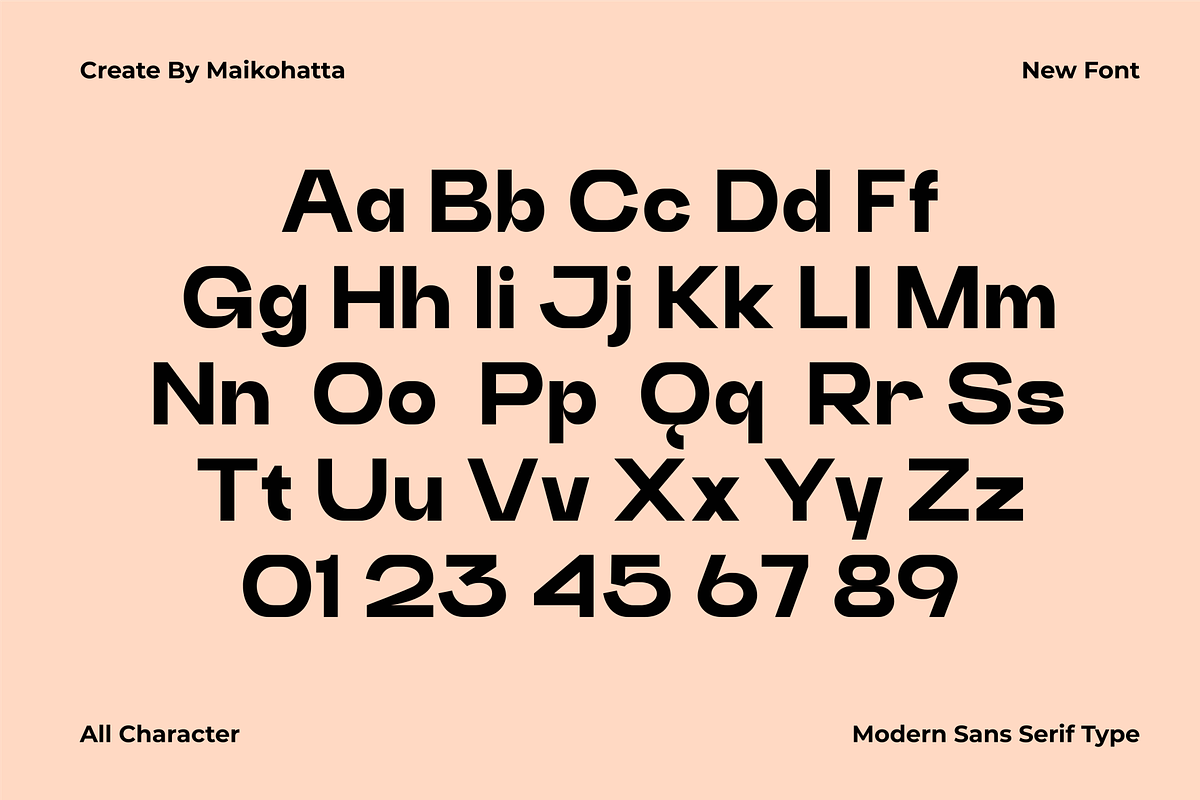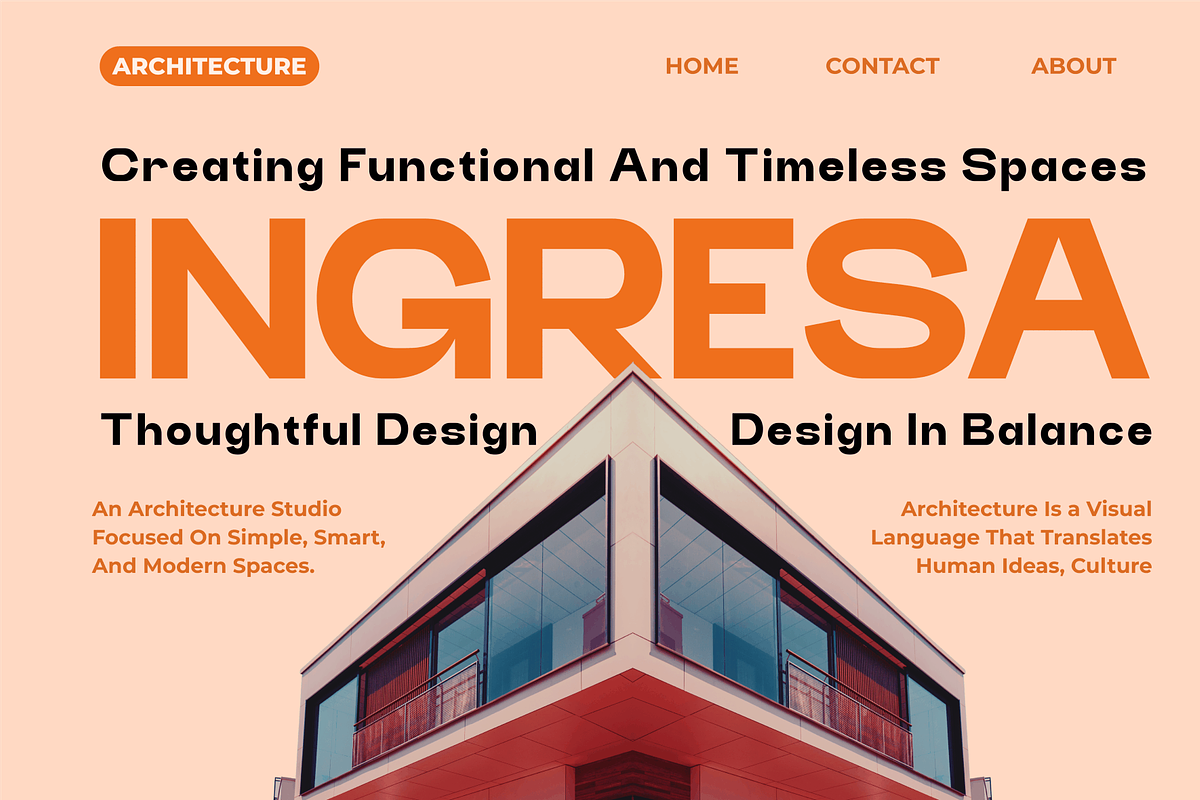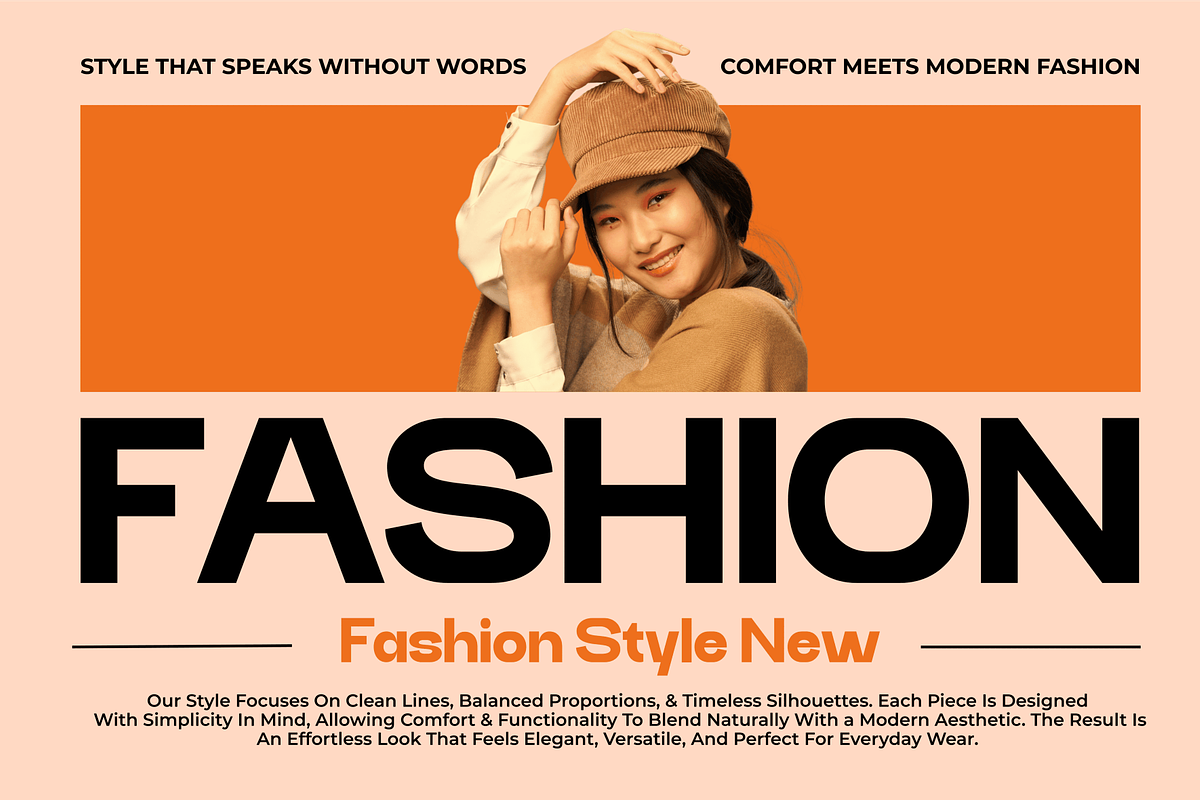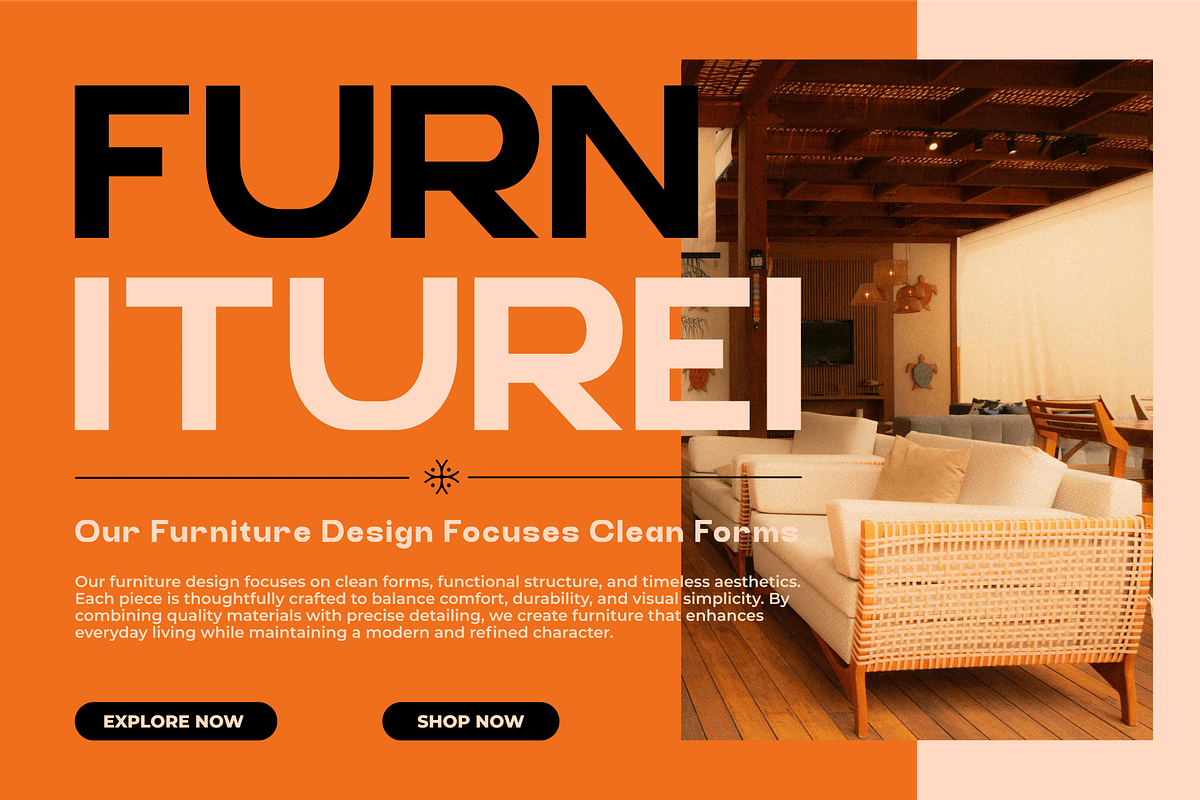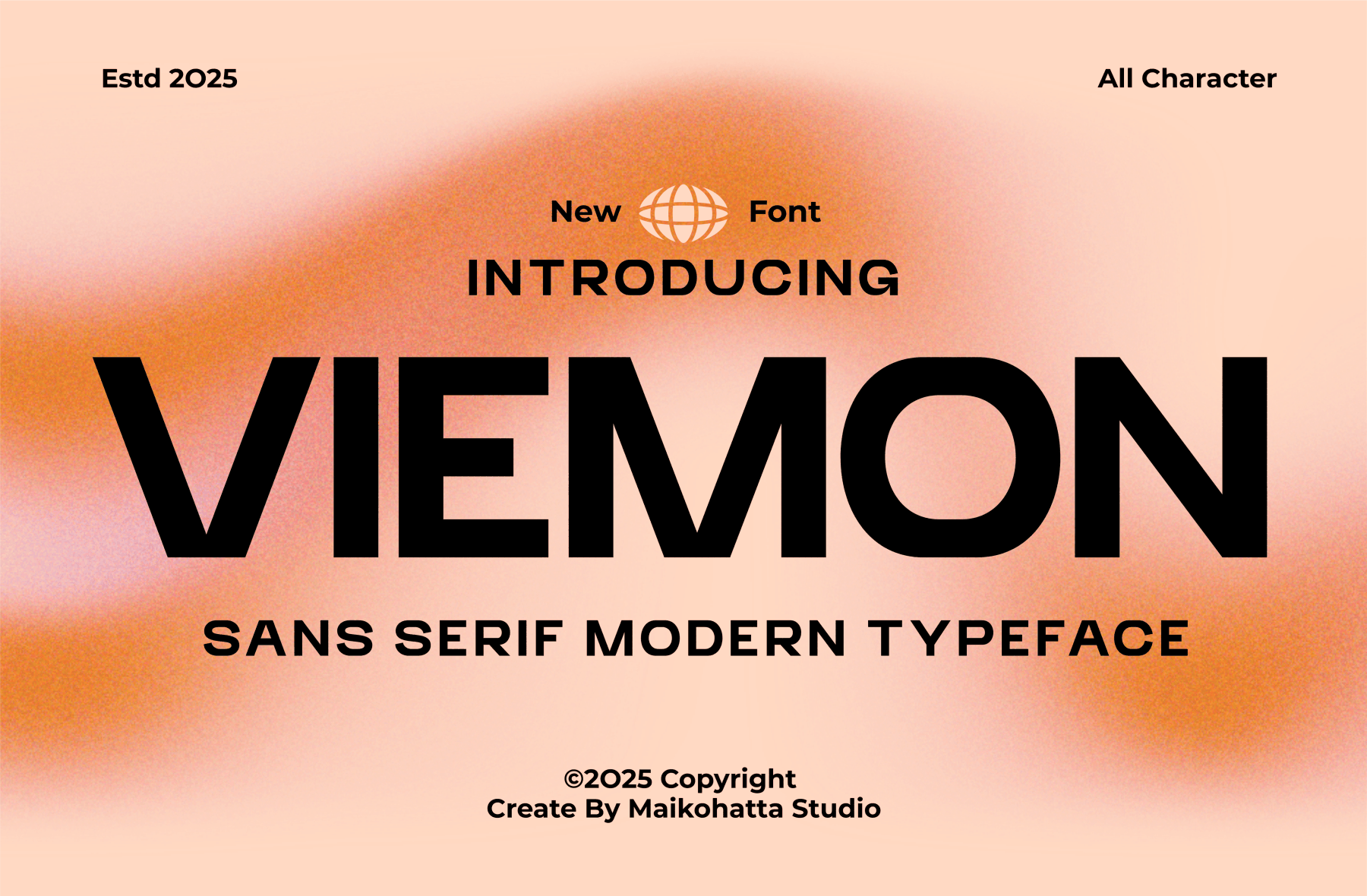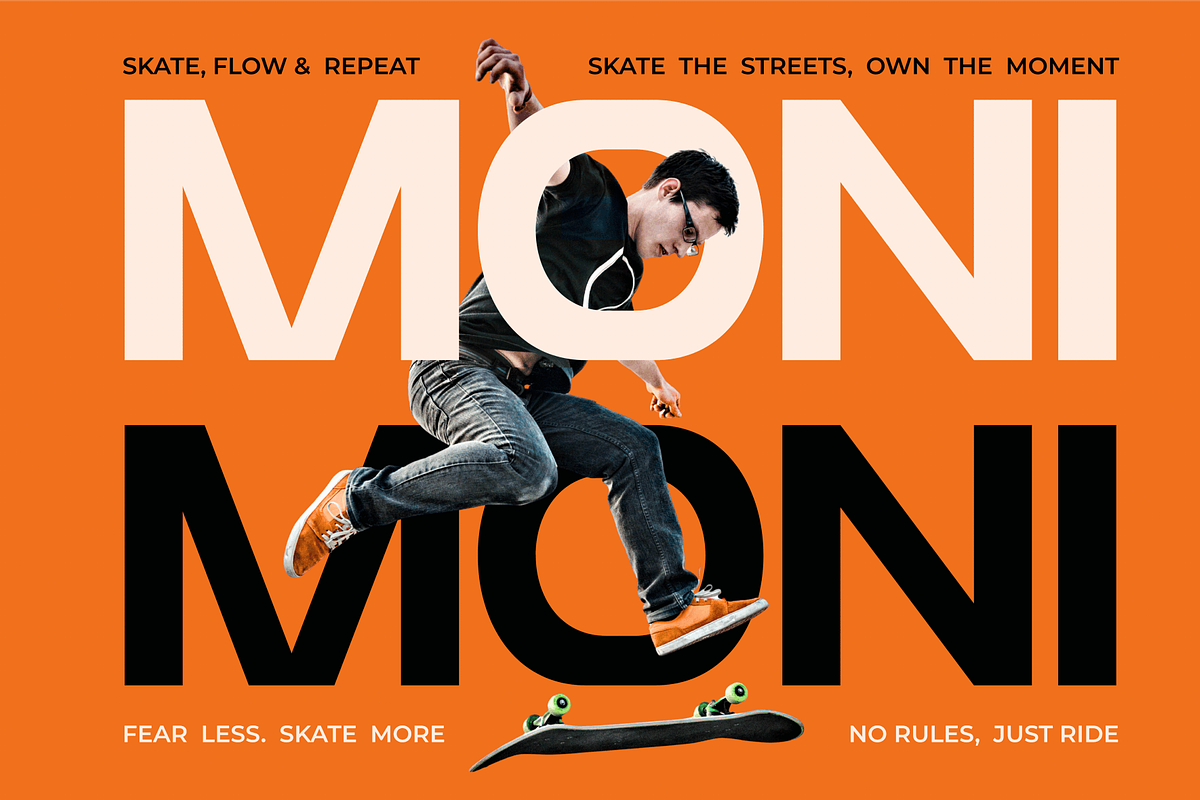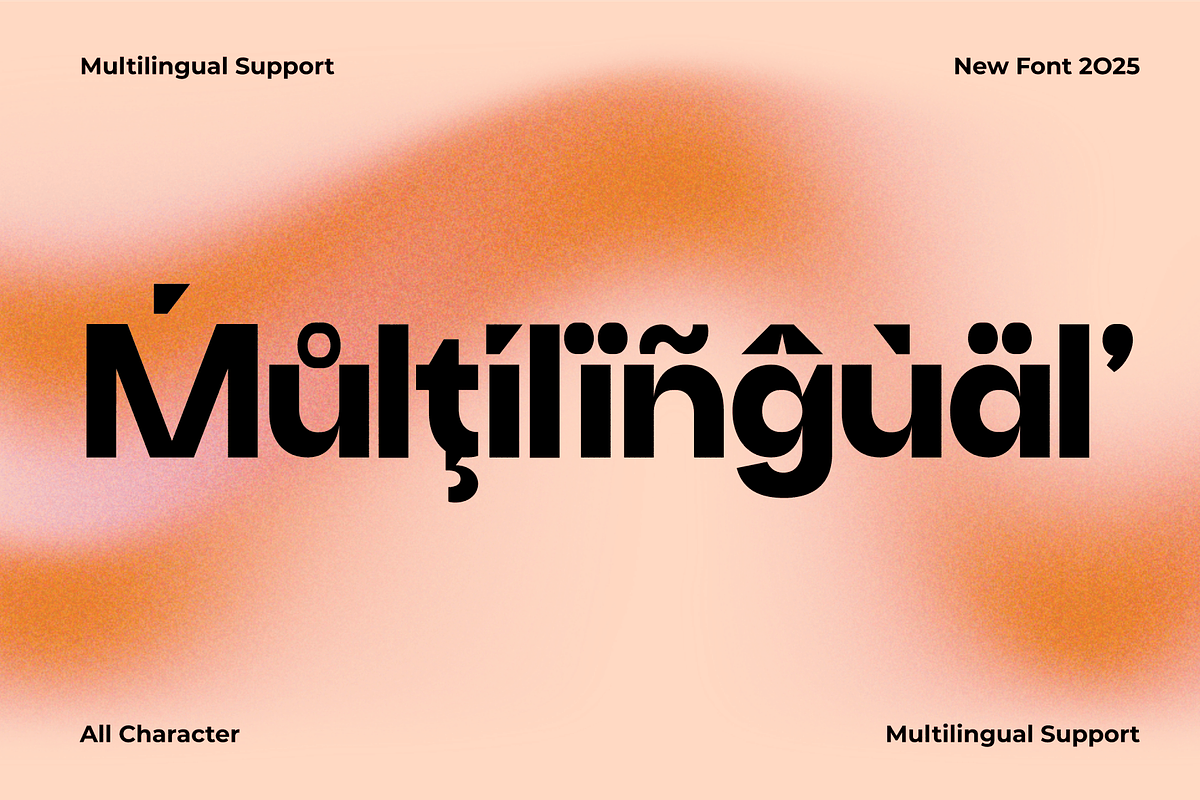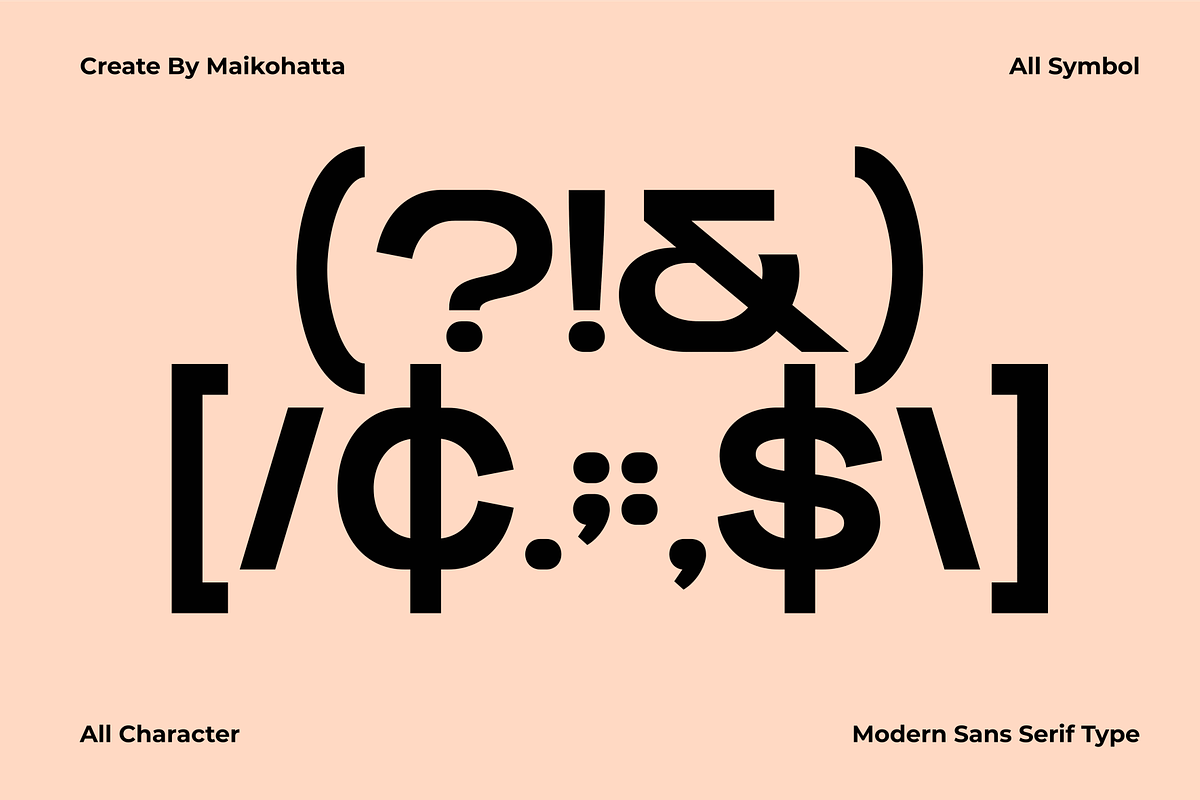
Viemon – Modern Sans Serif Typeface
Introducing our new product Viemon - Modern Sans Serif Typeface
Viemon is a modern sans serif typeface designed with a bold, clean, and contemporary character. This typeface delivers strong visual impact while maintaining excellent readability, making it perfect for both display and text applications.
With its balanced proportions and minimalist structure, Viemon works beautifully in a variety of creative projects, including branding, logos, editorial layouts, web design, UI/UX, posters, advertising, social media graphics, and corporate identities. This font's modern aesthetic ensures a professional look that aligns with current design trends.
Viemon is carefully designed for flexibility and consistency, enabling designers to create strong typographic hierarchies and compelling visual communication. Whether used for headlines or supporting text, Viemon adds clarity, confidence, and modern elegance to any design.
Perfect for: Branding, Logos, Editorial, Websites, UI Design, Marketing, Corporate, Packaging, and Digital Media.